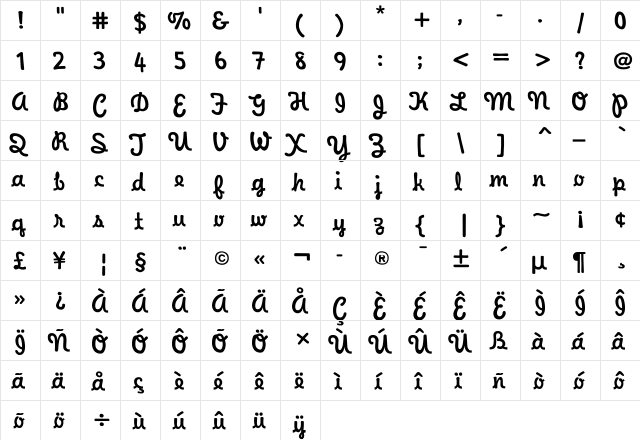
WaveeWeekend Normal
Design Context for WaveeWeekend Typeface
WaveeWeekend is a composed and adaptable typeface that performs quietly and consistently across a wide range of design contexts.